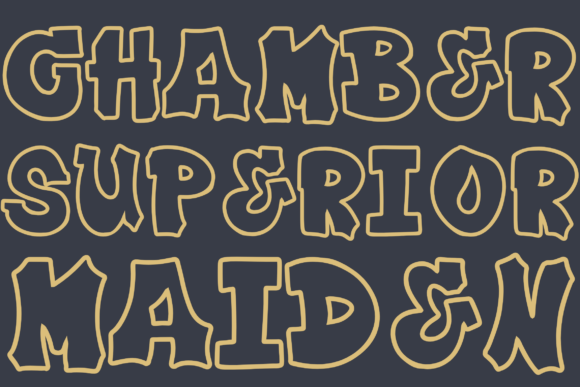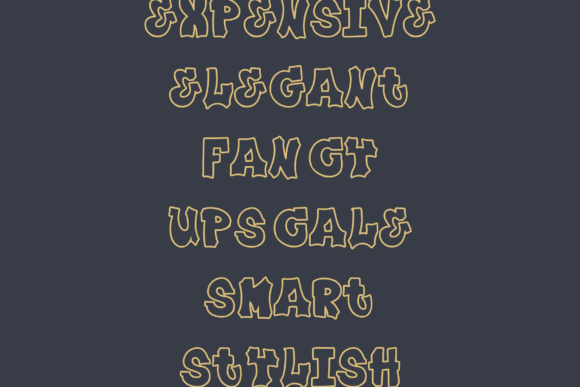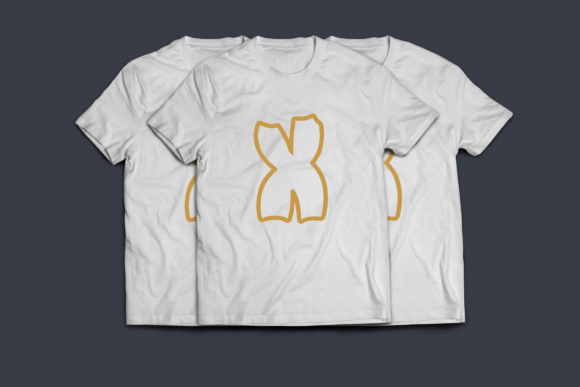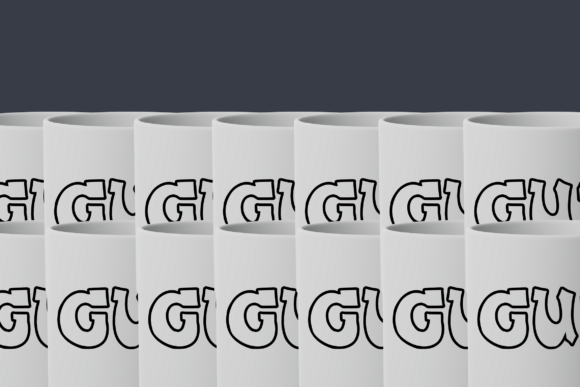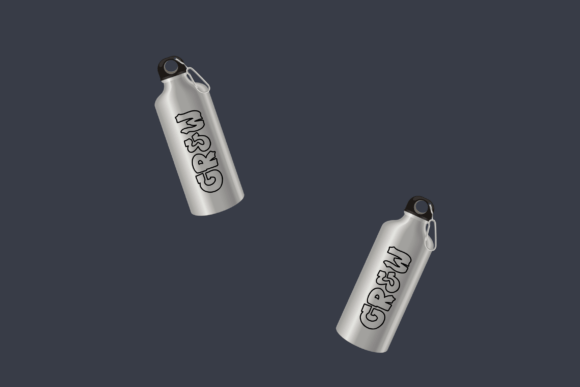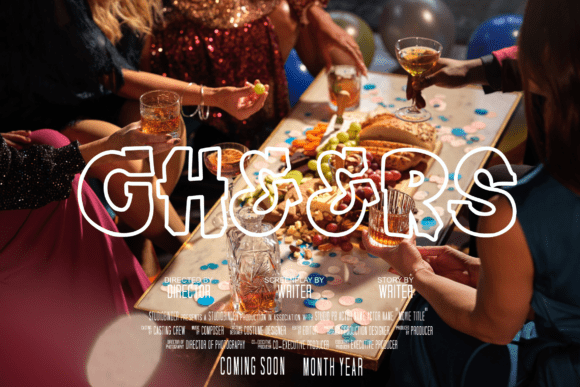
Discovering the Perfect Design Companion: Plump Outline Font
Enter the Plump Outline Font, a game-changing design resource that brings a playful touch to your creative projects. With its bold yet airy letters and clean stroke, this font is perfect for headlines, stickers, shirts, and standout social posts. Its versatility, combined with its high-quality design, makes it an invaluable addition to any designer’s toolkit.
Key Features of Plump Outline Font
- Unique plump outline style with a transparent background, allowing for seamless integration with various design elements.
- Includes a range of characters, including uppercase and lowercase letters, numbers, and punctuation marks, to support a variety of creative projects.
- Perfect for adding a playful and whimsical touch to various creative projects, from graphics and logos to digital art and typography.
Honest Review: Plump Outline Font
Here are some things that work really well with this font: ✨ High-contrast outline design makes it perfect for creative projects where visibility is key. ✨ Transparent background allows for seamless integration with other design elements. ✨ The font’s playful, whimsical feel adds a touch of personality to any design.
Now, let’s talk about some limitations: ⚠️ The font might not be suitable for formal or professional projects where a more conservative design is required. ⚠️ The outline design can be a bit distracting if not used thoughtfully, so be sure to balance it with solid colors and negative space.
Overall, I’m really impressed with the Plump Outline Font. It’s a great addition to any designer’s toolkit, and I’ll definitely be using it for future creative projects.
Working with the Font
Alternatives to Plump Outline Font
Pacifico is a high-quality, cursive font ideal for creative projects that require a touch of elegance. It features a transparent background, making it perfect for designing logos, branding materials, or graphics. When to use: Pacifico is suitable for projects that need a sophisticated, yet approachable feel. It’s a great alternative to Plump Outline Font for those who want a more refined look.
Comparison: Pacifico offers a more subtle, cursive design compared to Plump Outline Font’s bold, block-letter style. While Plump Outline Font excels at creating bold headlines, Pacifico shines in providing a refined, elegant feel for body text.
Great Vibes is a free download font that offers a fun, cursive design perfect for creative projects. It features a transparent background and is ideal for designing graphics, logos, or branding materials. When to use: Great Vibes is suitable for projects that need a playful, energetic feel. It’s a great alternative to Plump Outline Font for those who want a more casual, approachable look.